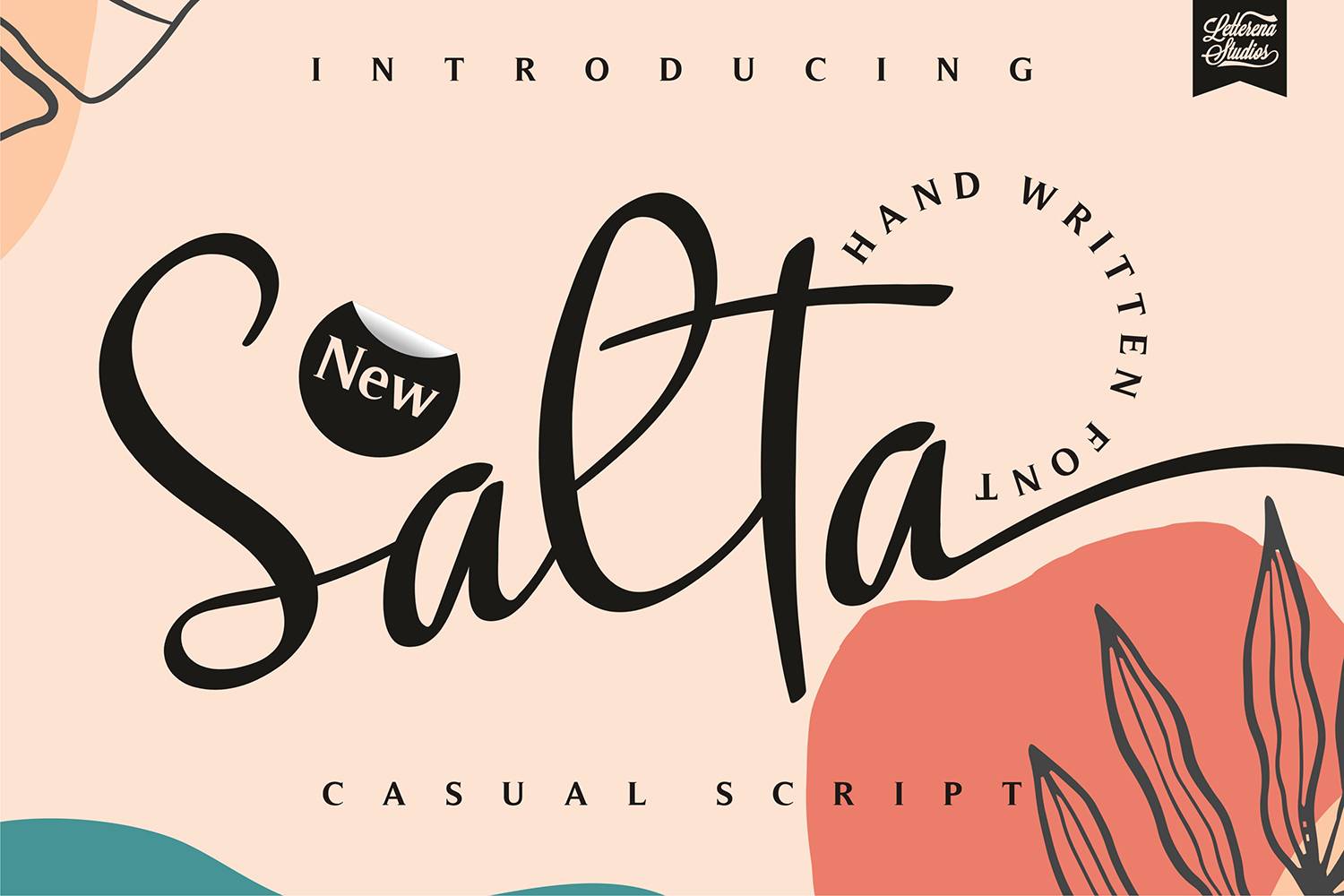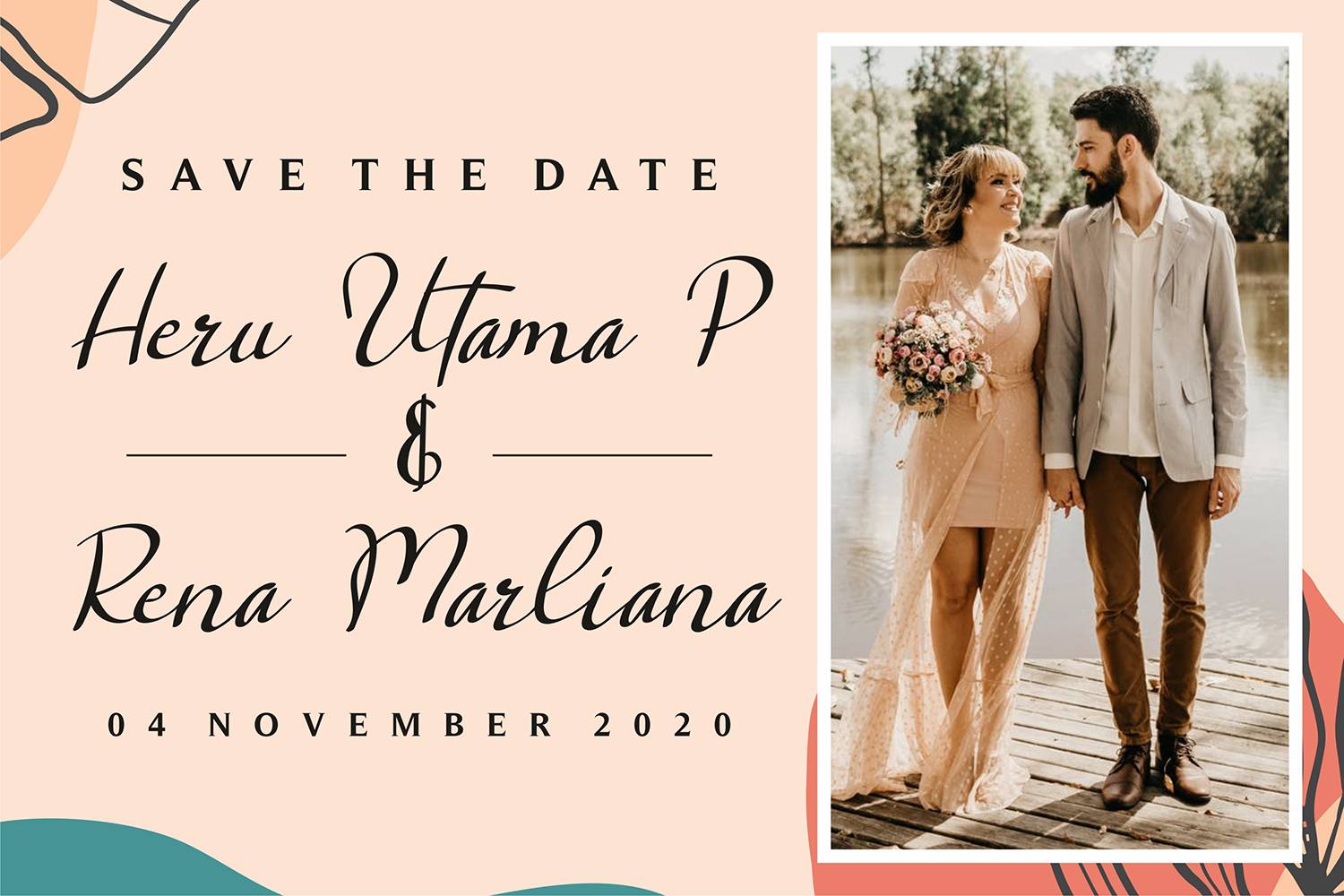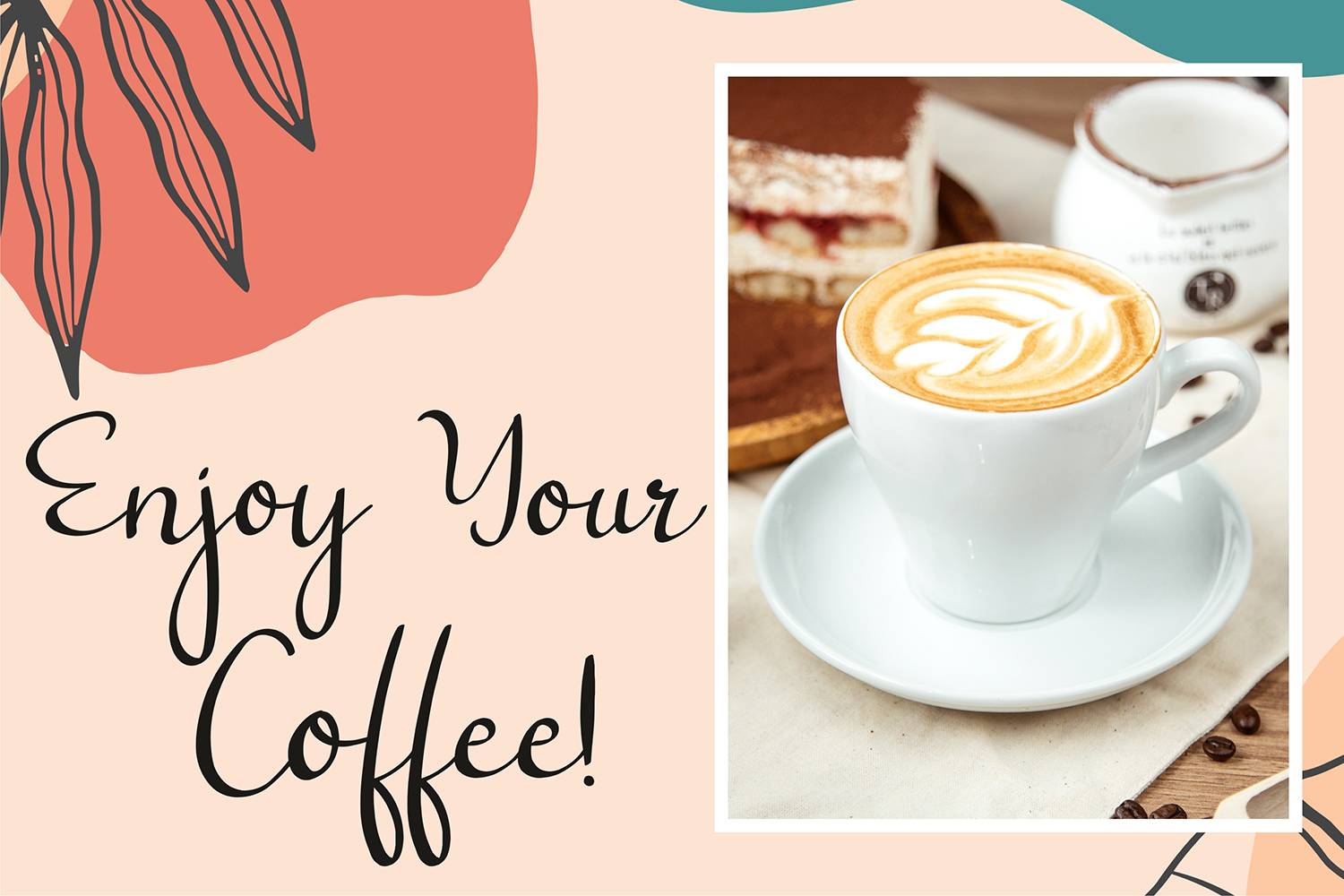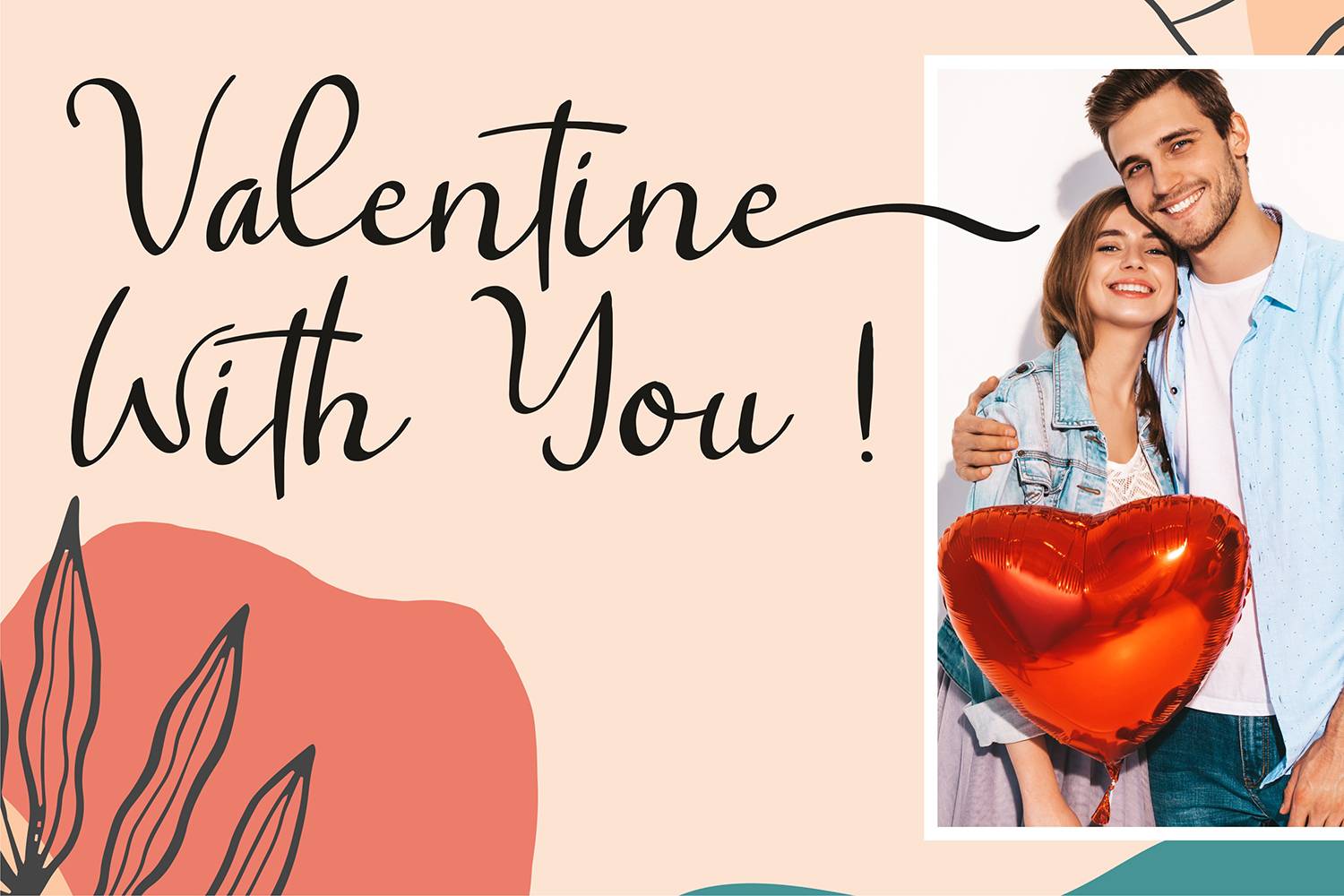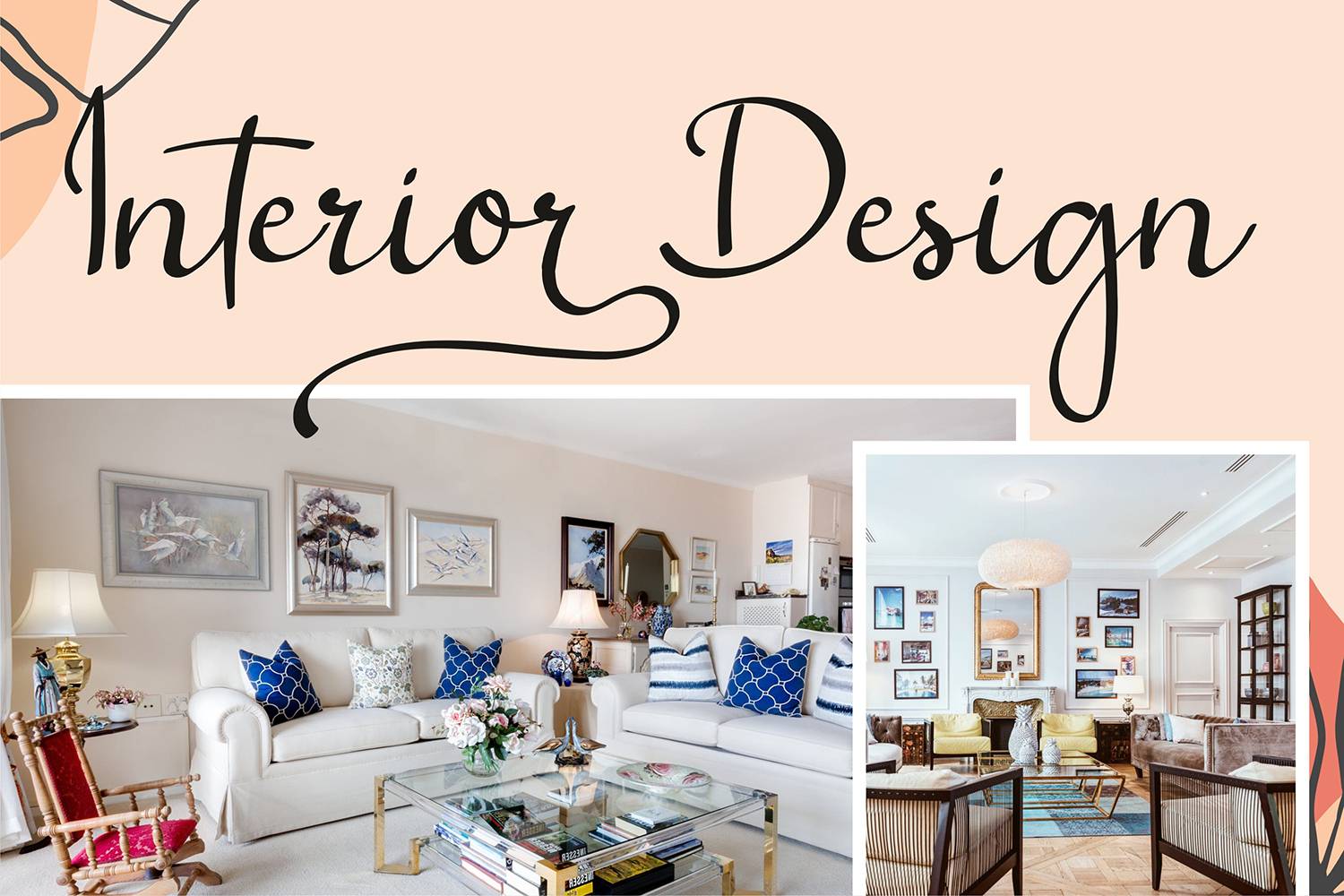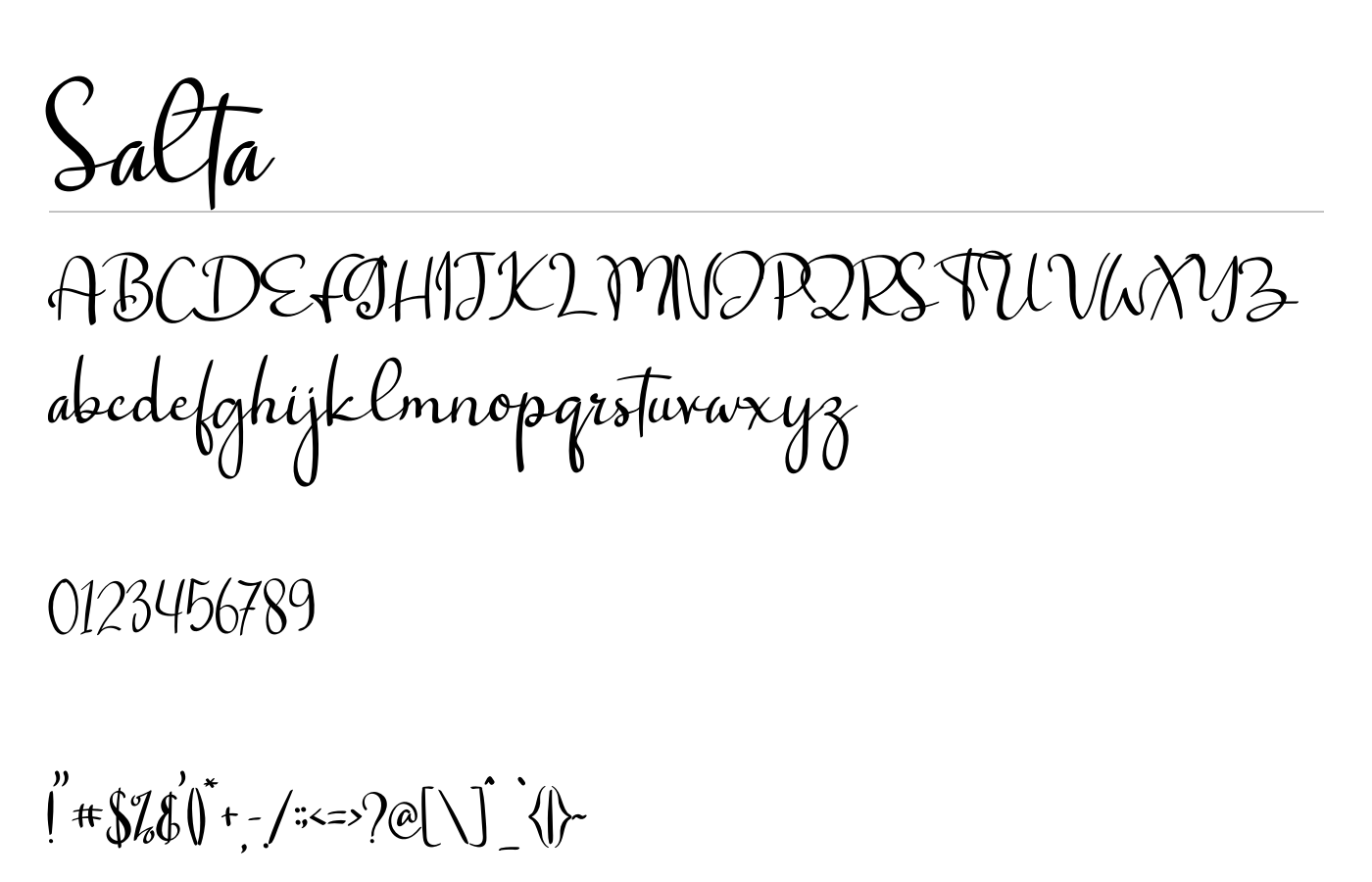
Salta is a playful and elegant script font with a hand-lettered feel, featuring flowing, delicate strokes and a mix of thick and thin lines that create a lively rhythm. Its tall x-height, distinctive uppercase swashes, and smooth connecting lowercase letters make it perfect for branding, invitations, and creative projects that need a charming and personable touch. This font works especially well in headlines and logos where a sophisticated yet approachable style is desired.
Salta Font
About Salta Font
| Font family | Salta Font |